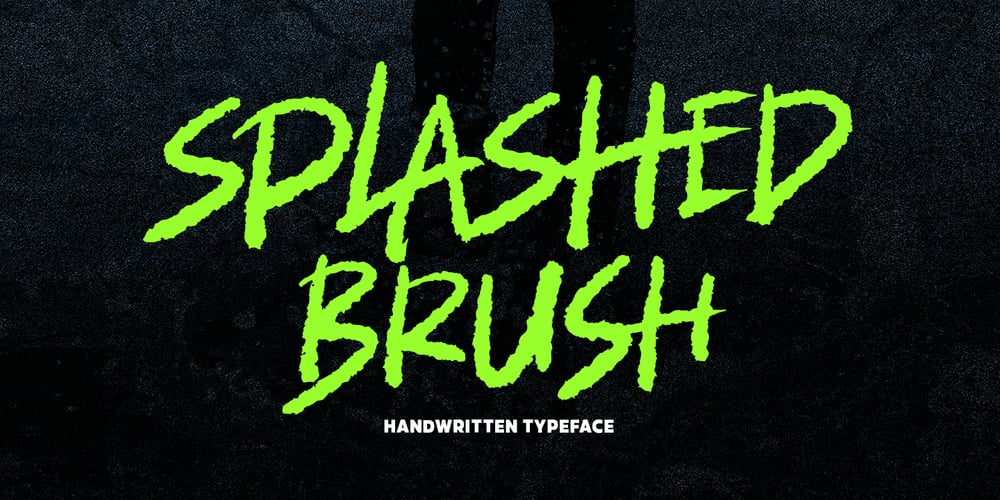
Splashed
Splashed font
Splashed Font Family was designed by Bagas Ardiatma and published by Trustha. Splashed contains 1 styles and family package options. Splashed is a handwritten brush font with dynamic movement. Comes in 400+ glyphs. Splashed perfect for display, branding, advertising, and many more.